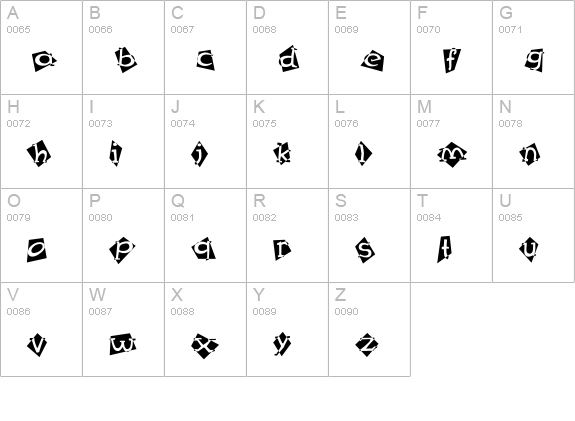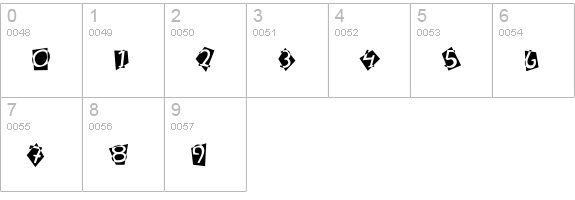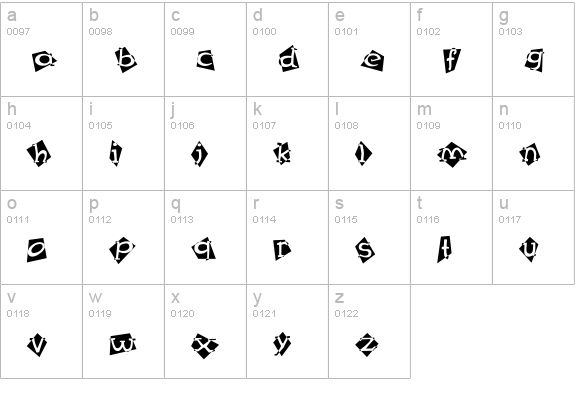
Mex Special-One is a versatile and stylish font that exudes creativity and charm. With its unique blend of modern and vintage elements, this font is perfect for a wide range of design projects. The bold and eye-catching characters of Mex Special-One are sure to make your text stand out and leave a lasting impression. Best of all, Mex Special-One is available for free download at FontsMarket.com. You can easily access this fantastic font and incorporate it into your designs without any cost. Whether you're working on a branding project, a poster design, or a social media graphic, Mex Special-One is the perfect choice to add a touch of sophistication and personality. Don't miss out on the opportunity to enhance your designs with this captivating font. Download Mex Special-One for free today and let your creativity shine!